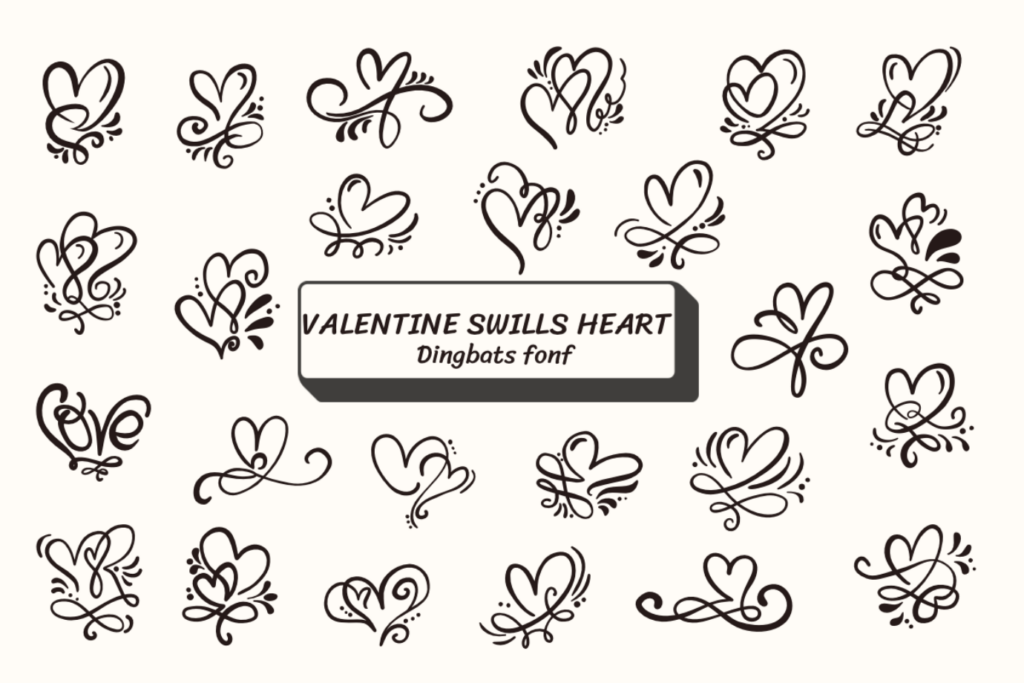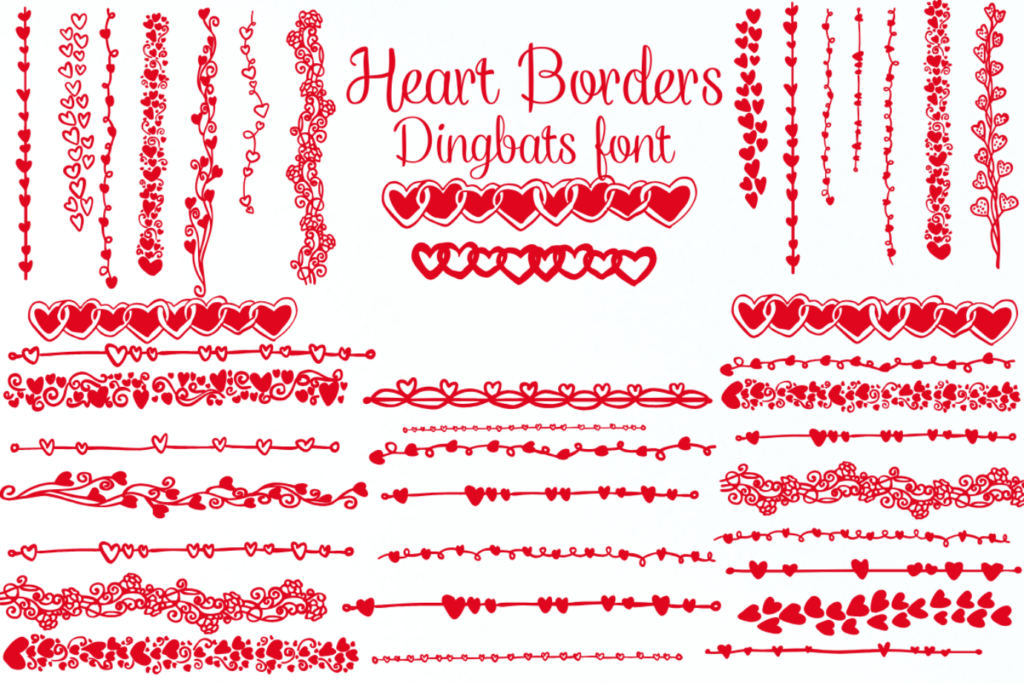
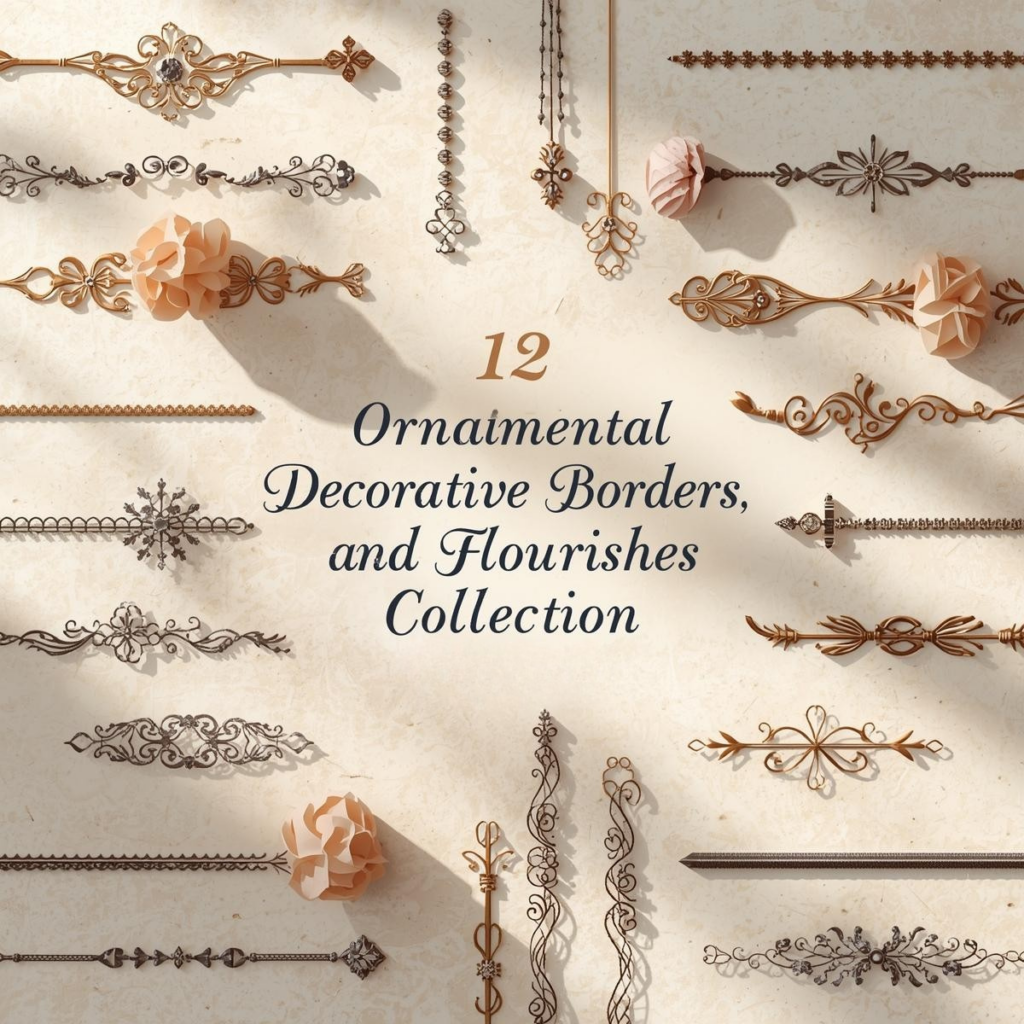
Have you ever glanced at a beautifully designed invitation card and wondered, “How can I add such charming elegance to my own crafts?” Our love for the delicate flourishes and ornate borders in design is universal and timeless.
The charm of ornamental decorative borders and flourishes dingbats fonts lies in their ability to transform an ordinary piece into an extraordinary one. These intricate fonts and patterns become a solution to a plain and dull design, adding a touch of luxury and sophistication. They are ideal for projects like personalizing greeting cards, enhancing scrapbooking pages, and elevating home decor pieces.
As we dive deeper into this collection, you’ll discover 12 distinctive styles offering different vibes and aesthetics. From whimsical swirls to regal patterns, there’s a visual delight waiting for you. So are you ready to give your crafts a personality of their own? Let’s explore!
Extra Ornament Font
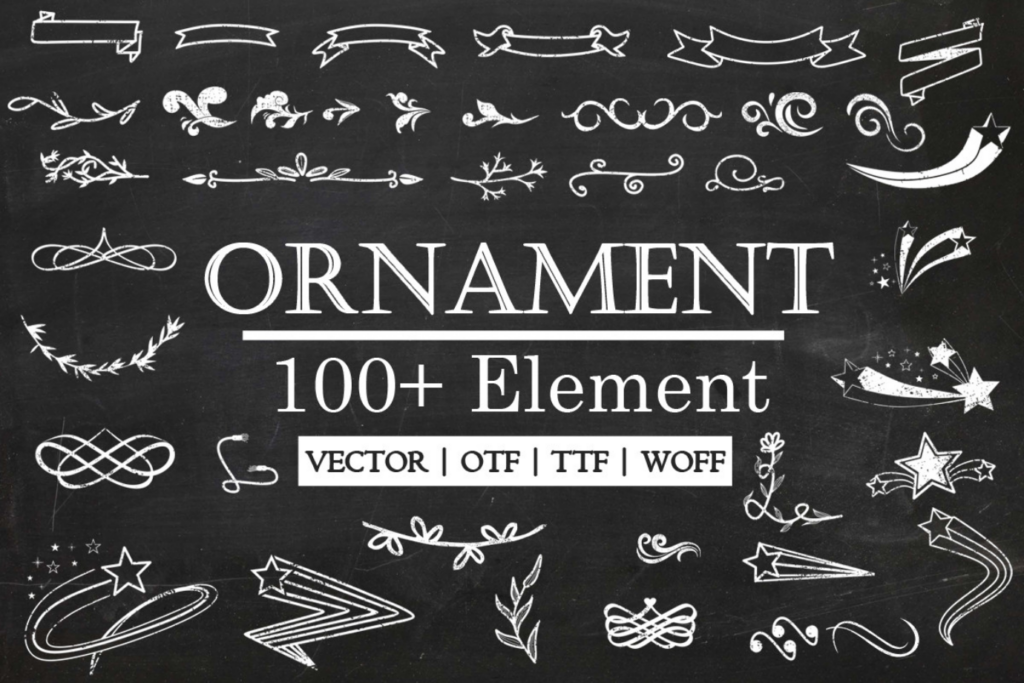
Extra Ornament Font is a charming dingbats font that adds a touch of elegance to any project. Ideal for invitations, greeting cards or personalized stationery, its versatility is a delight for creative enthusiasts. Imagine a bespoke wedding invitation, its borders adorned with the beautifully intricate designs from this font. It’s a convenient tool, capable of transforming simple designs into unique and eye-catching creations.
Ornamental Dividers Font
Ornamental Dividers Font is a charming dingbats font, with a timeless elegance. It’s the perfect tool for enhancing invitations, greeting cards, or personal stationery. Imagine a wedding invitation adorned with these intricate borders, adding a touch of luxury and sophistication. It’s a versatile and easy-to-use font that elevates your projects with little effort, creating stunning results every time.
Ornamental Corner Borders Font
Ornamental Corner Borders Font is an exquisite dingbats font with a touch of elegance. It’s a perfect tool for adding an artistic flair to wedding invitations, greeting cards, or even personalizing your stationery. Imagine a beautifully designed birthday card, its corners adorned with this ornate font, making your creation stand out. This font not only enhances the aesthetic appeal of your projects, but also adds a personal touch that speaks volumes about your attention to detail.
Wedding Frame Font
The Wedding Frame Font is a delightful collection of ornamental letter characters, drawn by hand for a romantic touch. Ideal for wedding projects, it adds elegance to invitations, place cards, and even bridal boutique logos. Imagine a framed, personalized monogram adorning a wedding reception wall, creating a memorable visual centerpiece. Its hand-drawn style and versatility make it a go-to for those seeking a unique, heartfelt touch in their creative work.
Floral Frame Font
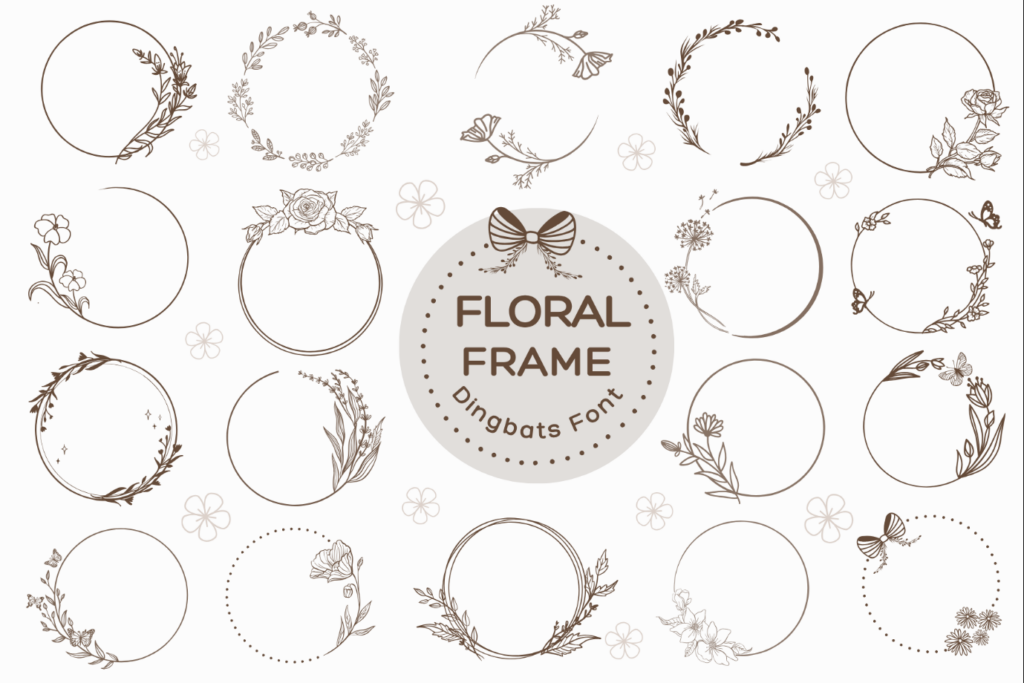
Floral Frame Font is a whimsical dingbat style, overflowing with hand-drawn wreaths and frames. It’s ideal for adding a personal touch to monograms, logos, or invitations. Picture a wedding invite, enhanced with a unique floral emblem, setting the tone for an unforgettable event. This font offers a simple yet effective way to elevate your design work, adding an element of charm and bespoke beauty.
Wedding Ornaments Font
Wedding Ornaments Font is a charming dingbats font with a romantic twist. It’s ideal for crafting unique wedding invitations, DIY projects, or decorating logos. Imagine designing a wedding invitation, each border adorned with intricate heart-shaped ornaments, adding a touch of elegance. The convenience of this font lies in its versatility, turning any creative idea into a beautifully adorned piece of art.
Flourish Line Font
Flourish Line Font is a playful dingbats font with an ornamental twist. It’s perfect for enhancing creative projects, from web design to handmade greeting cards. Imagine using it to add an unexpected border to an e-invitation, giving it a touch of whimsy and elegance. This font makes it effortless to infuse personality into your designs, resulting in beautifully unique pieces every time.
Framerly Font
Framerly Font is a charming dingbats font offering two unique frame sets. It is ideal for designing bespoke invitations or personalized greeting cards. Imagine your favorite family photo, framed elegantly by Framerly, taking center stage in your custom-designed holiday card. With its creative versatility, Framerly Font makes turning your ideas into tangible artwork a seamless process.
Valentine Ornaments Font
The Valentine Ornaments Font is a sketch-style dingbats font, brimming with romantic charm. It’s an ideal choice for enhancing creative tasks like wedding invitations, DIY crafts, and decorative projects. Picture a wedding invitation adorned with intricate borders and corner details, all created with this font. Its unique designs make it a convenient tool for adding a personalized touch to your creative work.
Conclusion
These ornamental dingbats and flourishes fonts are your secret weapon for stunning designs. They can transform simple projects into artwork, from wedding invitations to personalized gifts. What magic will your hands and these beautiful borders create today? Remember, the world is a canvas to our imagination. Let’s fill it with beauty, one project at a time.